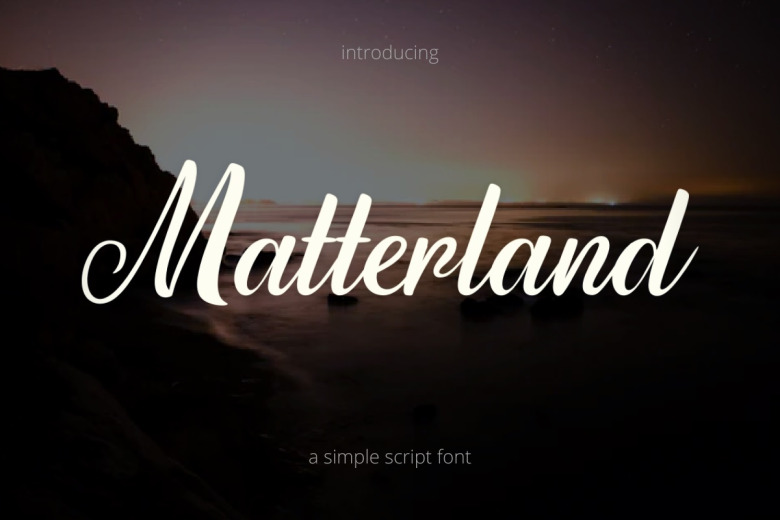
Matterland is a beautiful calligraphy font. It has a wide spectrum of use possibilities, from greeting cards to headlines, and will bring a charming feel to your project in no time. In addition, as it is PUA encoded, you can access all of the gorgeous glyphs and swashes easily!
Matterland Calligraphy Font